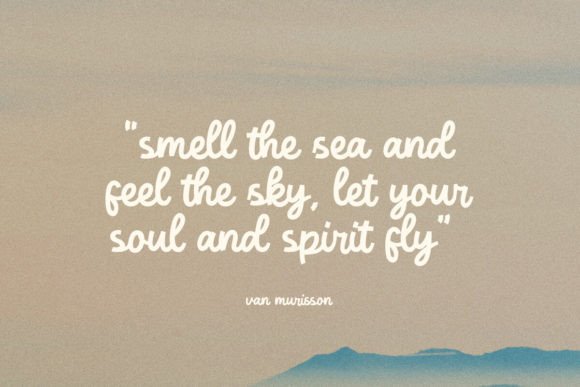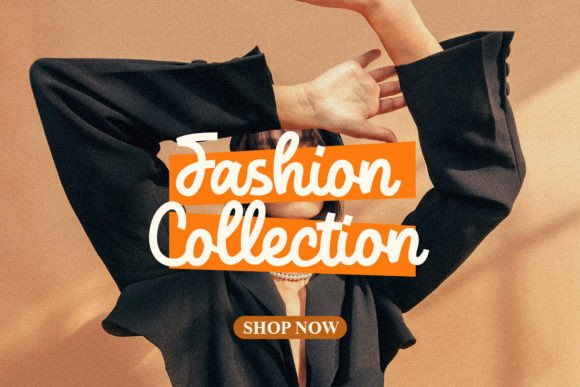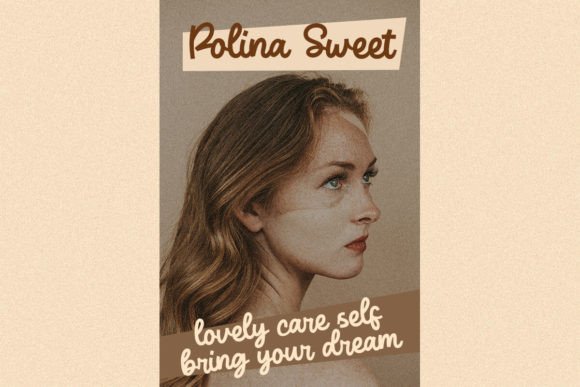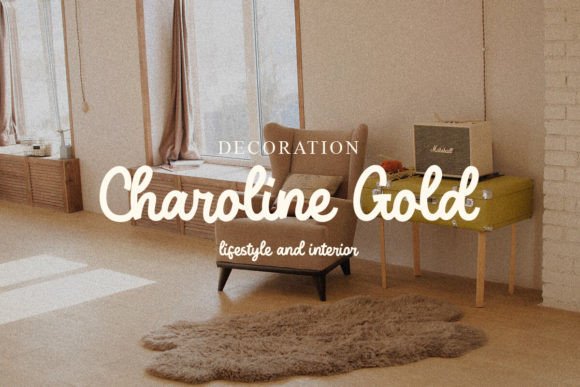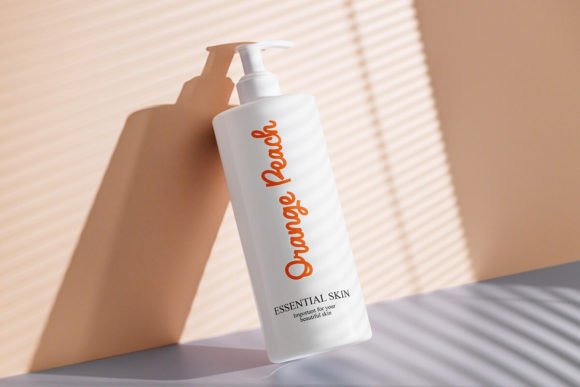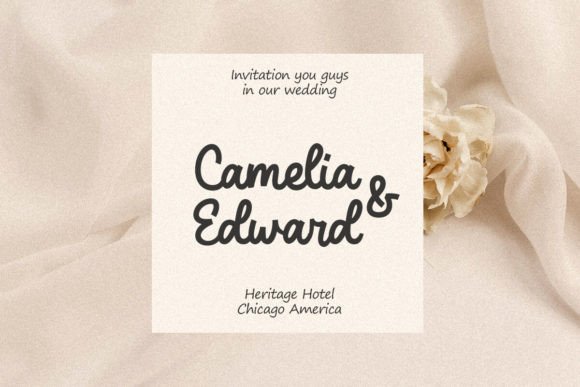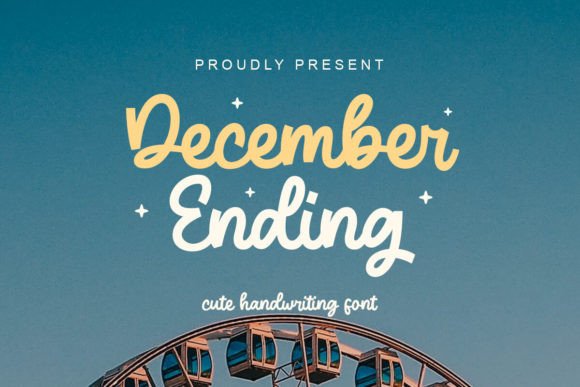
Introducing December Ending Font: Elevate Your Designs with Elegance
Are you on the hunt for a font that exudes modern sophistication and effortless elegance? Look no further than the December Ending Font. This stunning, handwritten font is designed to elevate your designs, whether you’re a seasoned designer or a crafty DIY enthusiast. With its beautiful, well-balanced characters, December Ending Font is the perfect match for a wide range of design projects.
A Modern, Elegant, and Flowing Handwritten Font
December Ending Font boasts a modern, elegant, and flowing script that is sure to capture attention. Its unique, cursive style is perfect for adding a touch of sophistication to any design. Whether you’re creating wedding invitations, branding materials, or social media graphics, this font is sure to make your designs stand out.
Beautifully Crafted Characters
One of the standout features of December Ending Font is its beautifully crafted characters. Each letter is carefully designed to be well-balanced and visually appealing, making it perfect for use in a variety of design applications. The font’s characters are also highly legible, ensuring that your message is conveyed clearly and effectively.
December Ending Font is incredibly versatile, making it suitable for a wide range of design projects. Whether you’re creating:
- Blog headers and graphics
- Product labels and packaging
this font is sure to be a great fit. Its elegant, cursive style adds a touch of sophistication to any design, making it perfect for designers and crafters who want to create beautiful, high-quality visuals.
Why Choose December Ending Font?
So, why should you choose December Ending Font for your next design project? Here are just a few reasons:
- Unique and eye-catching: December Ending Font is a unique and eye-catching font that is sure to capture attention.
- Elegant and sophisticated: Its elegant, cursive style adds a touch of sophistication to any design.
- Highly legible: The font’s characters are highly legible, ensuring that your message is conveyed clearly and effectively.
- Versatile: December Ending Font is suitable for a wide range of design projects, making it a great addition to any designer’s toolkit.
Tips for Using December Ending Font
Here are a few tips for using December Ending Font in your designs:
- Pair it with a sans-serif font: Pair December Ending Font with a sans-serif font, such as Arial or Helvetica, to create a beautiful contrast.
- Use it for headings: December Ending Font is perfect for use in headings and titles, where its elegant, cursive style can really shine.
- Experiment with colors: Don’t be afraid to experiment with different colors and textures to add depth and interest to your designs.
In conclusion, December Ending Font is a stunning, modern, elegant, and flowing handwritten font that is sure to elevate your designs. With its beautifully crafted characters, versatility, and highly legible design, it’s the perfect choice for designers and crafters who want to create beautiful, high-quality visuals. So why wait? Download December Ending Font today and start creating stunning designs that will leave a lasting impression.